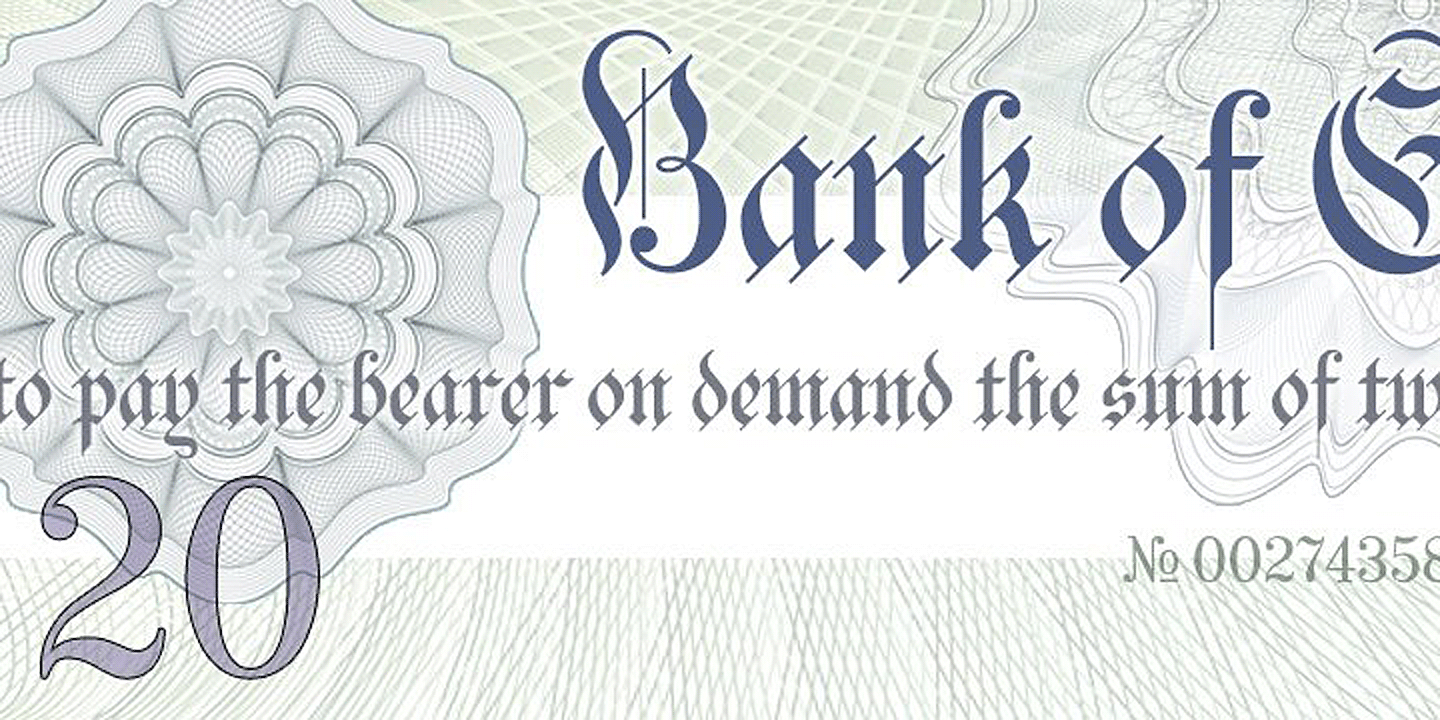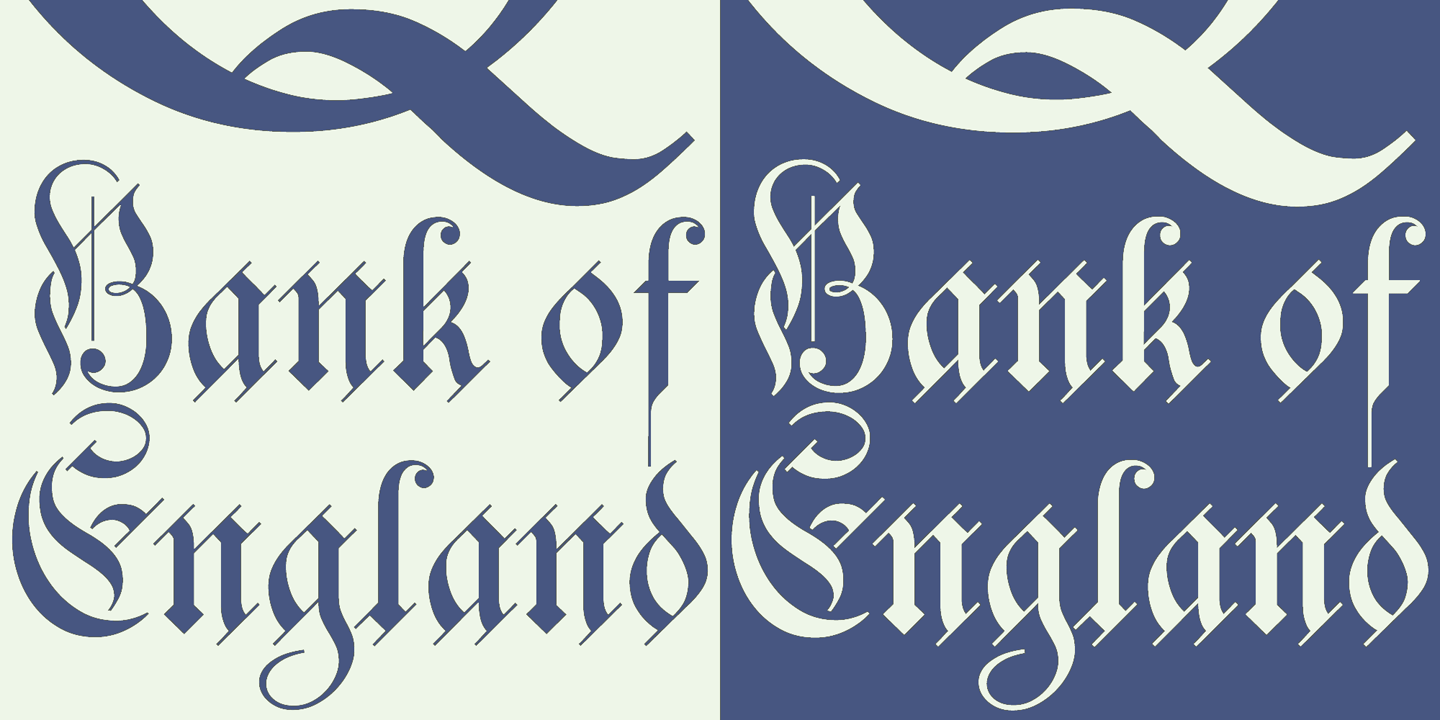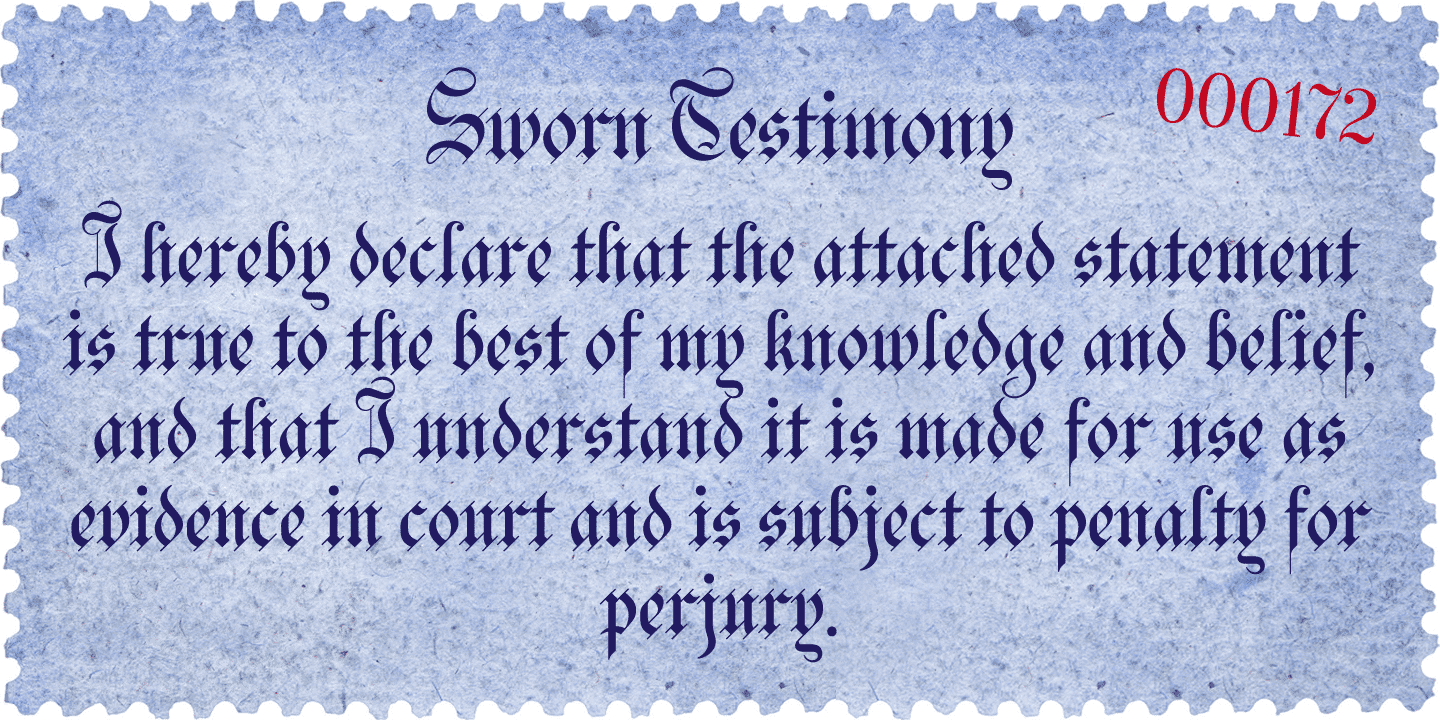
Bank of England
Font Family by K-Type
Bank of England is loosely based on the blackletter lettering from Series F English twenty pound banknotes introduced in 2007. The font takes inspiration from German Kanzlei (Chancery) typefaces and the English calligraphers John Ayres and George Bickham. For designers using OpenType-aware applications, Bank of England includes Swash versions of all uppercase letters and ampersand, Alternates for nine lowercase letters and capital Z, and sixteen ornamental flourishes.